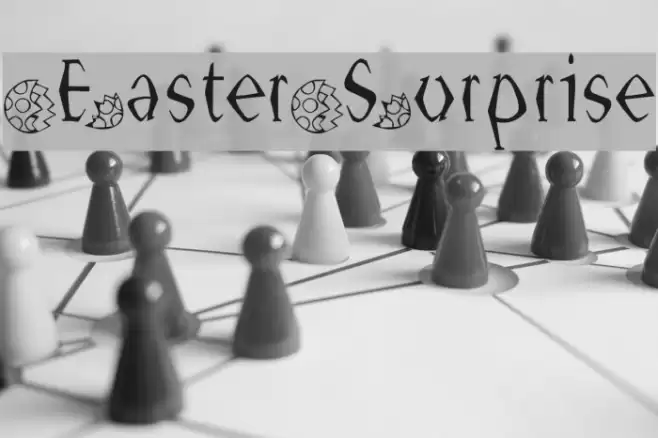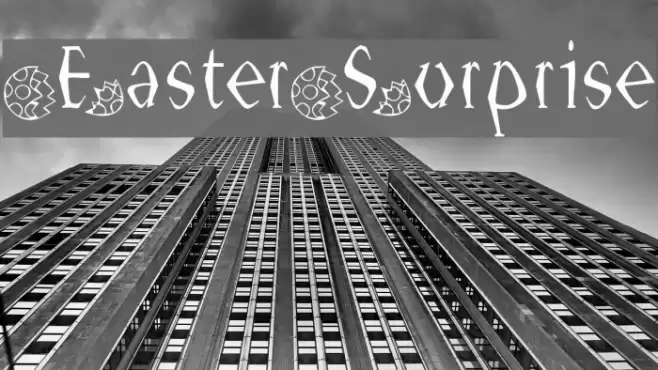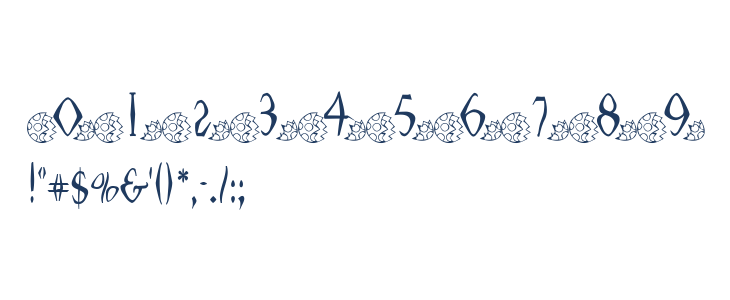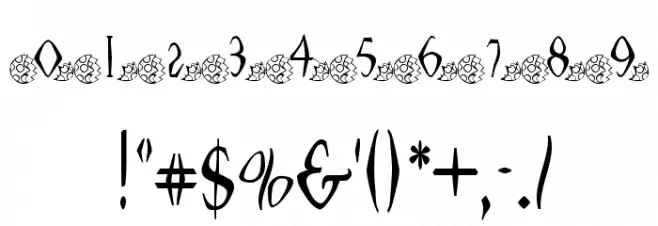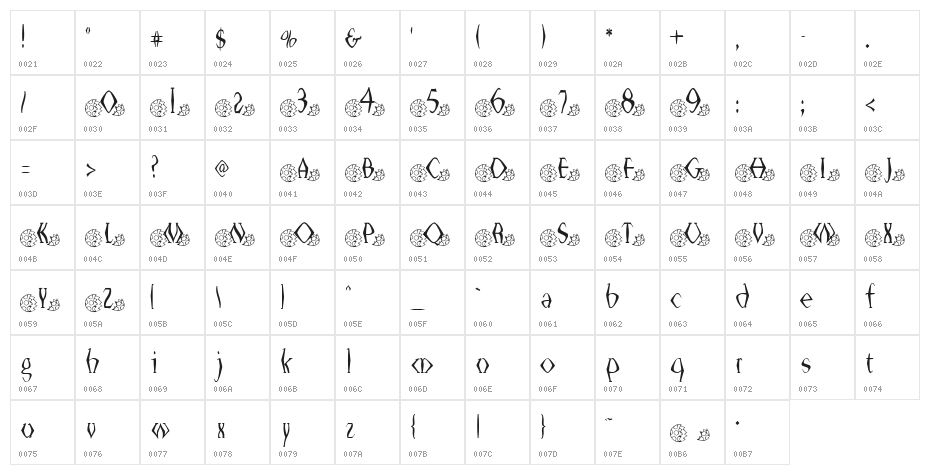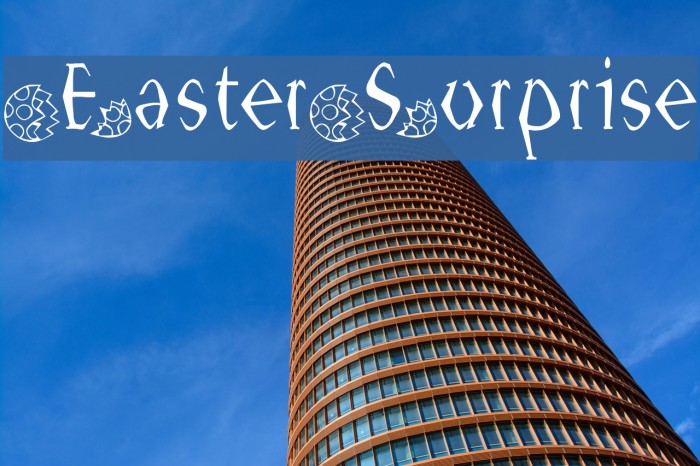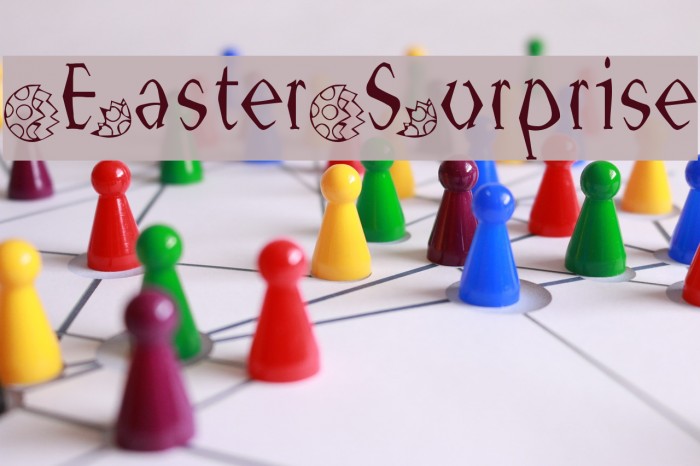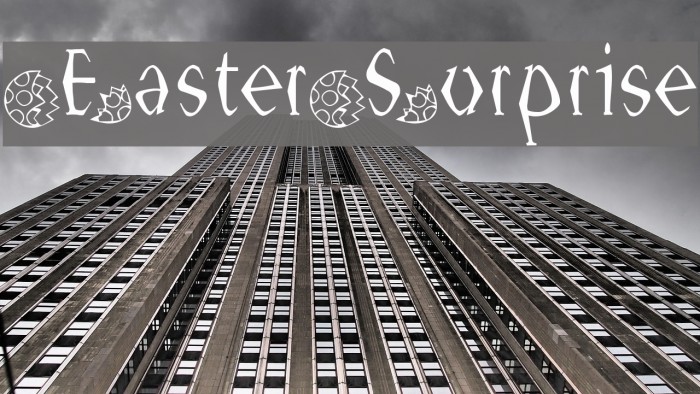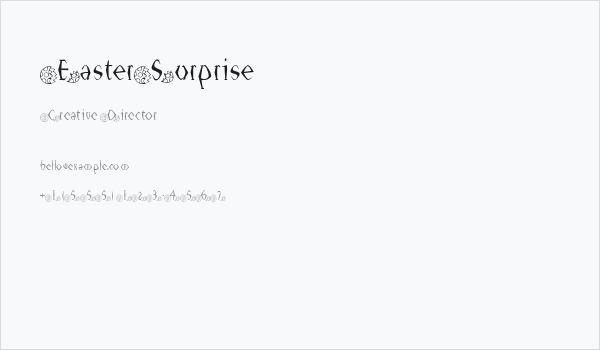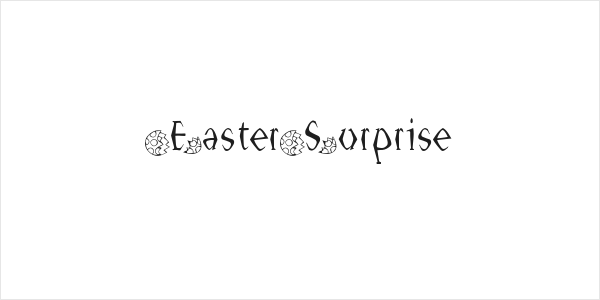
EasterSurprise Font
EasterSurprise Description
This font features a whimsical and decorative style, incorporating intricate floral patterns within the uppercase letters and numbers. The lowercase letters have a unique, slightly irregular shape that adds to the playful and artistic feel. The overall design is reminiscent of a fairy tale or fantasy theme, making it ideal for creative and imaginative projects. The combination of ornate and simple elements creates a striking contrast, enhancing its visual appeal. The font's distinctiveness makes it suitable for special occasions or themed designs where a touch of elegance and creativity is desired.
A whimsical, decorative font with floral patterns and unique letter shapes from Uncategorized fonts.
- Proposed Projects: Ideal for invitations, greeting cards, fantasy-themed posters, and decorative headings.
- Use Case: Headlines, Logos, Invitations